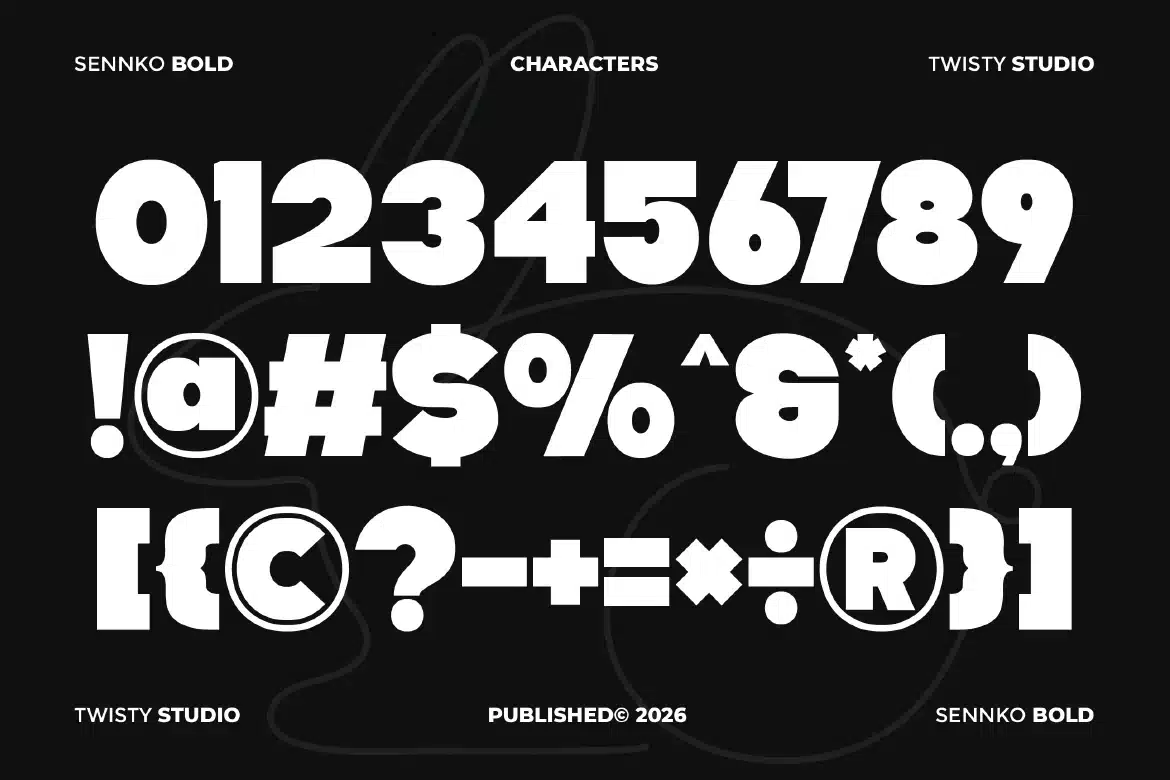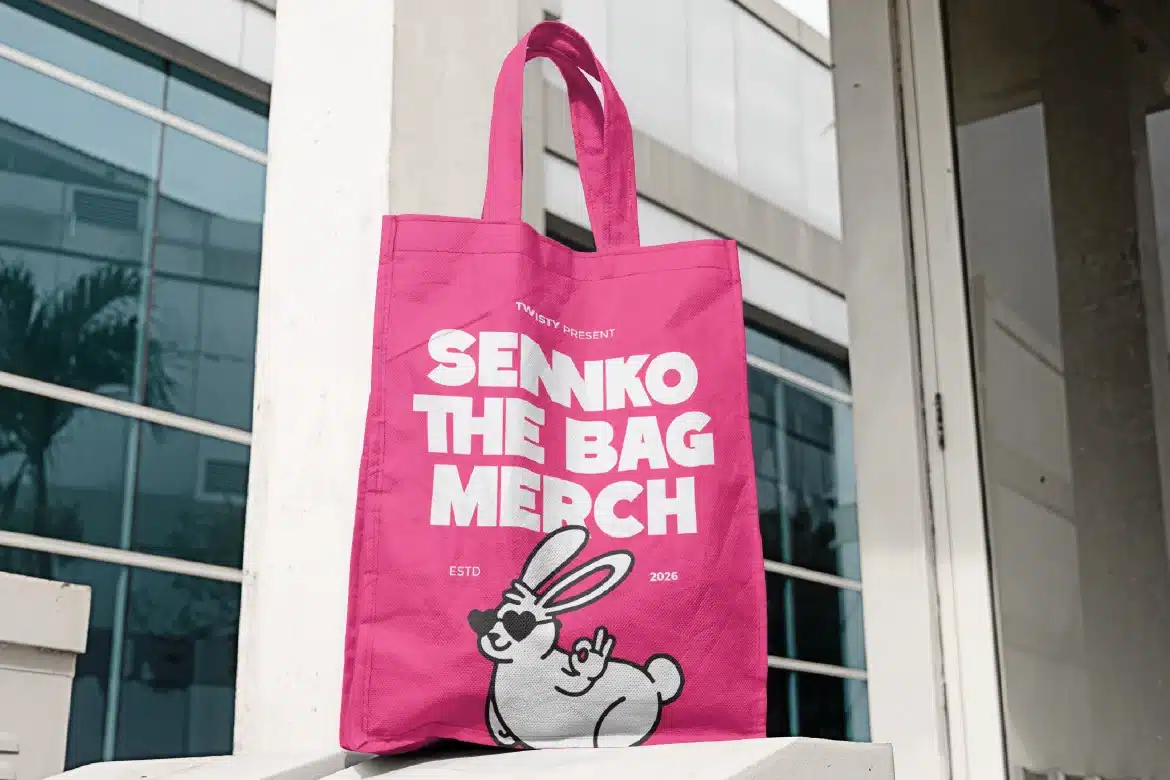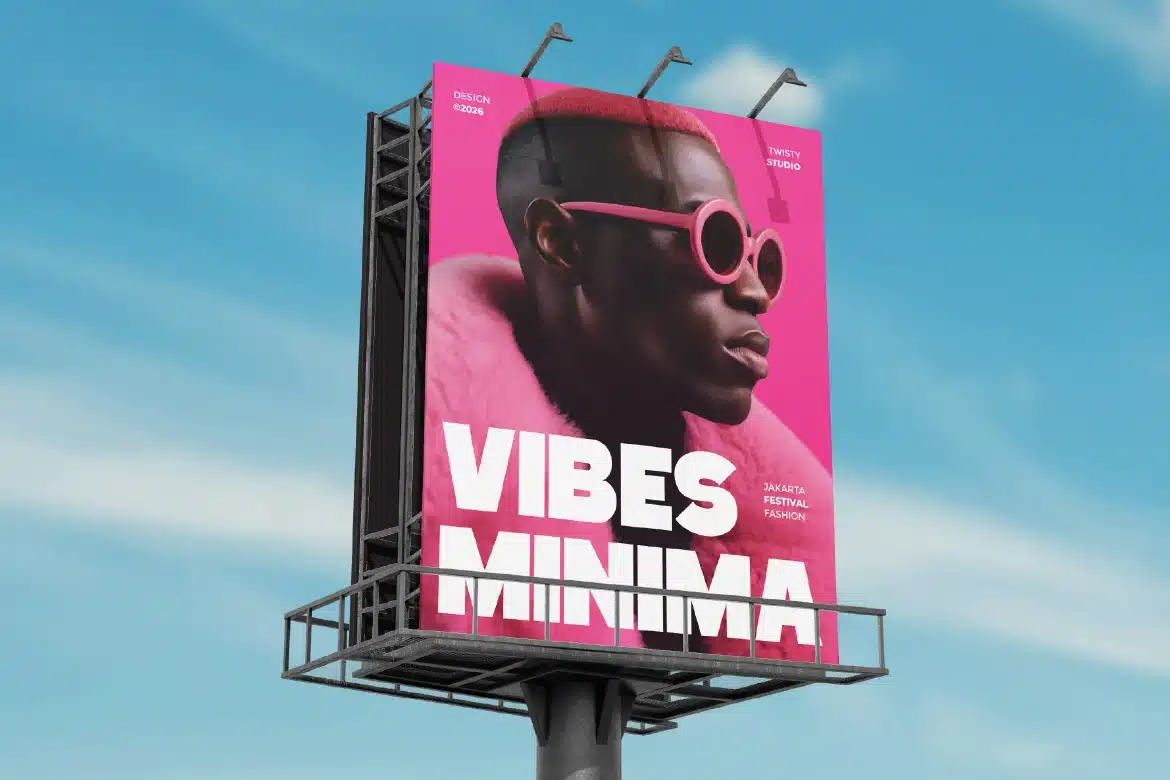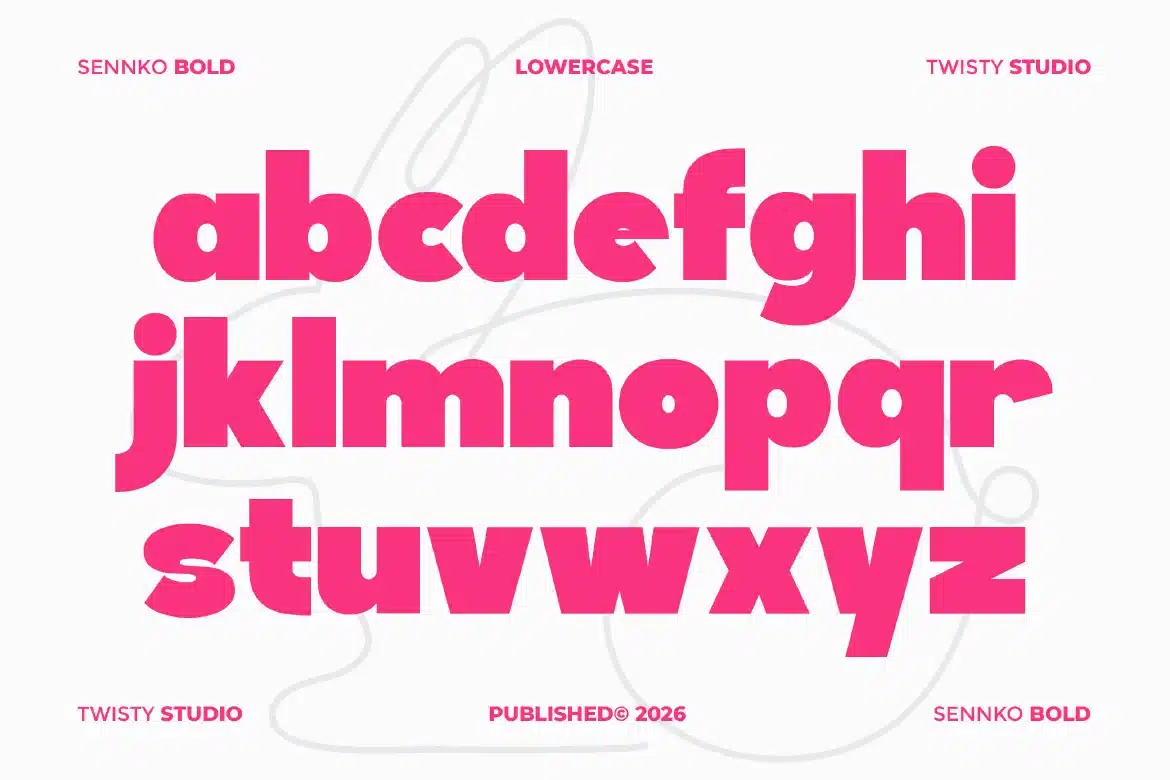
Bold Display Sans Font – Sennko
Bold Display Sans Font - Sennko
Sennko is a bold display sans font designed to deliver strong visual impact with a clean and modern approach. Featuring solid letterforms, balanced proportions, and a confident structure, Sennko creates a powerful presence that instantly draws attention. Built for display use, this typeface performs exceptionally well in large sizes where clarity and boldness are essential. Its clean sans serif foundation ensures readability, while the bold weight adds emphasis and strength to every word.
Who Should Use Sennko?
Sennko is ideal for designers, creatives, and brands looking for a bold and playful display font. It’s especially suited for projects that require strong, clear, and attention-grabbing typography.
Brand identity and logo design
Posters and bold headlines
Advertising and marketing materials
Social media graphics
Packaging and product design
Editorial and layout design
Web and digital design
Modern typography projects